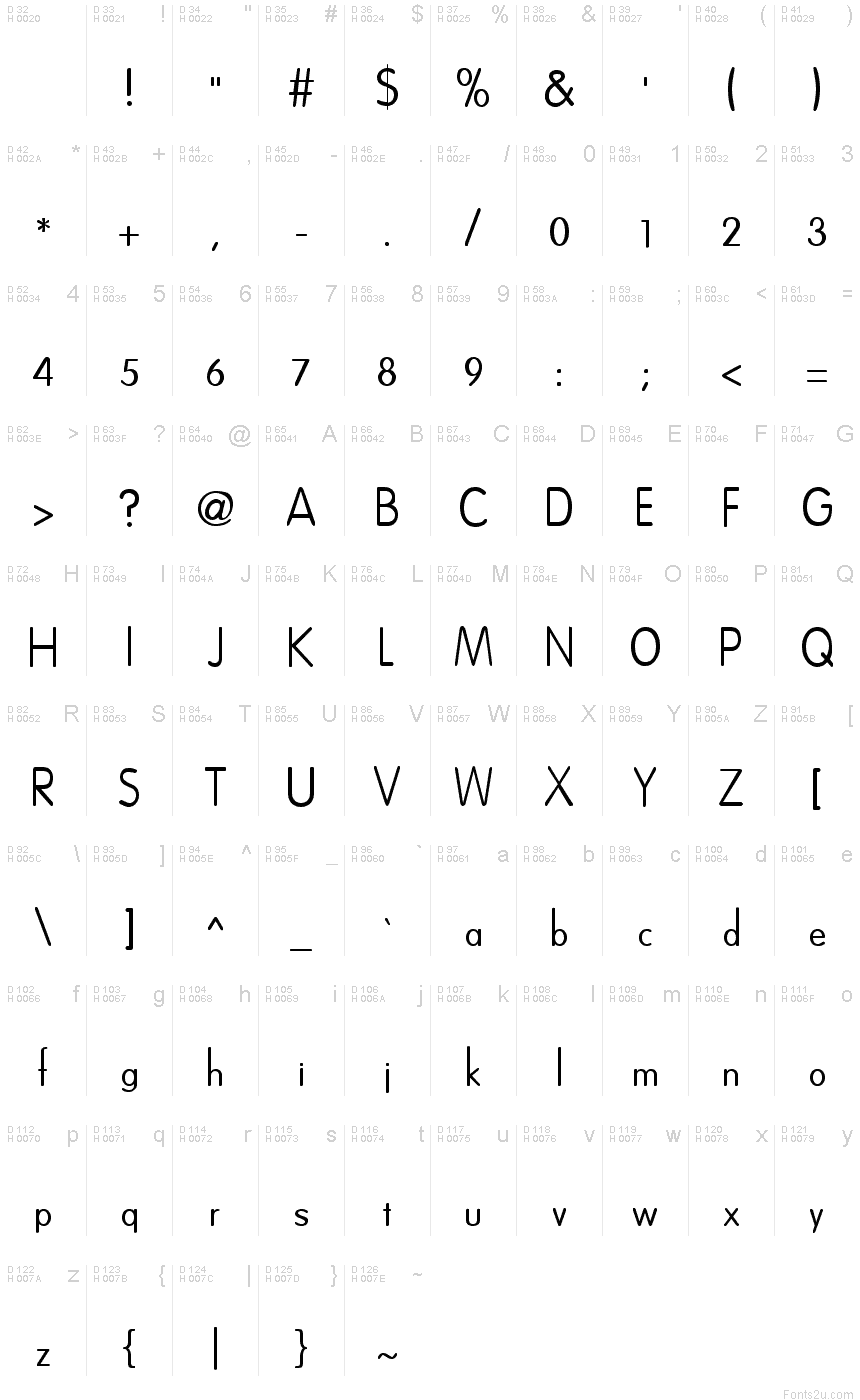
Dreamspeak
Dreamspeak font by Dreamfonts is a free humanist sans serif typeface designed for relaxed, crystal-clear reading on the web. Slim, evenly weighted strokes and open, roomy shapes keep text airy instead of cramped, while the gently rounded curves add a friendly, almost handwritten softness that feels right at home on screen.
Using Dreamspeak, body copy stays legible at small sizes, so it shines on blogs, long-form articles, documentation, UI text, product pages, and email newsletters. This free font also works beautifully for understated logos and clean slide decks; try pairing Dreamspeak with a sturdier geometric sans for headings to create a quiet, confident hierarchy.